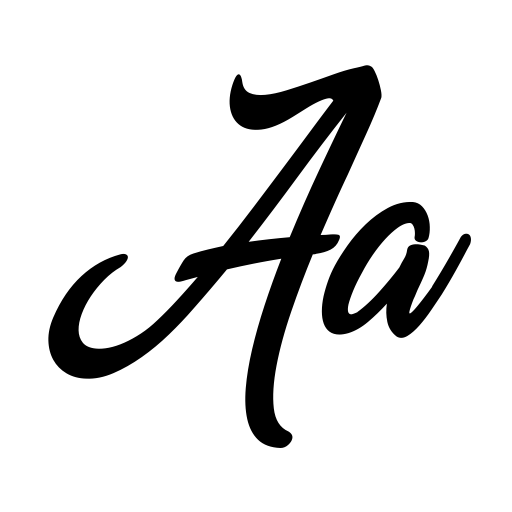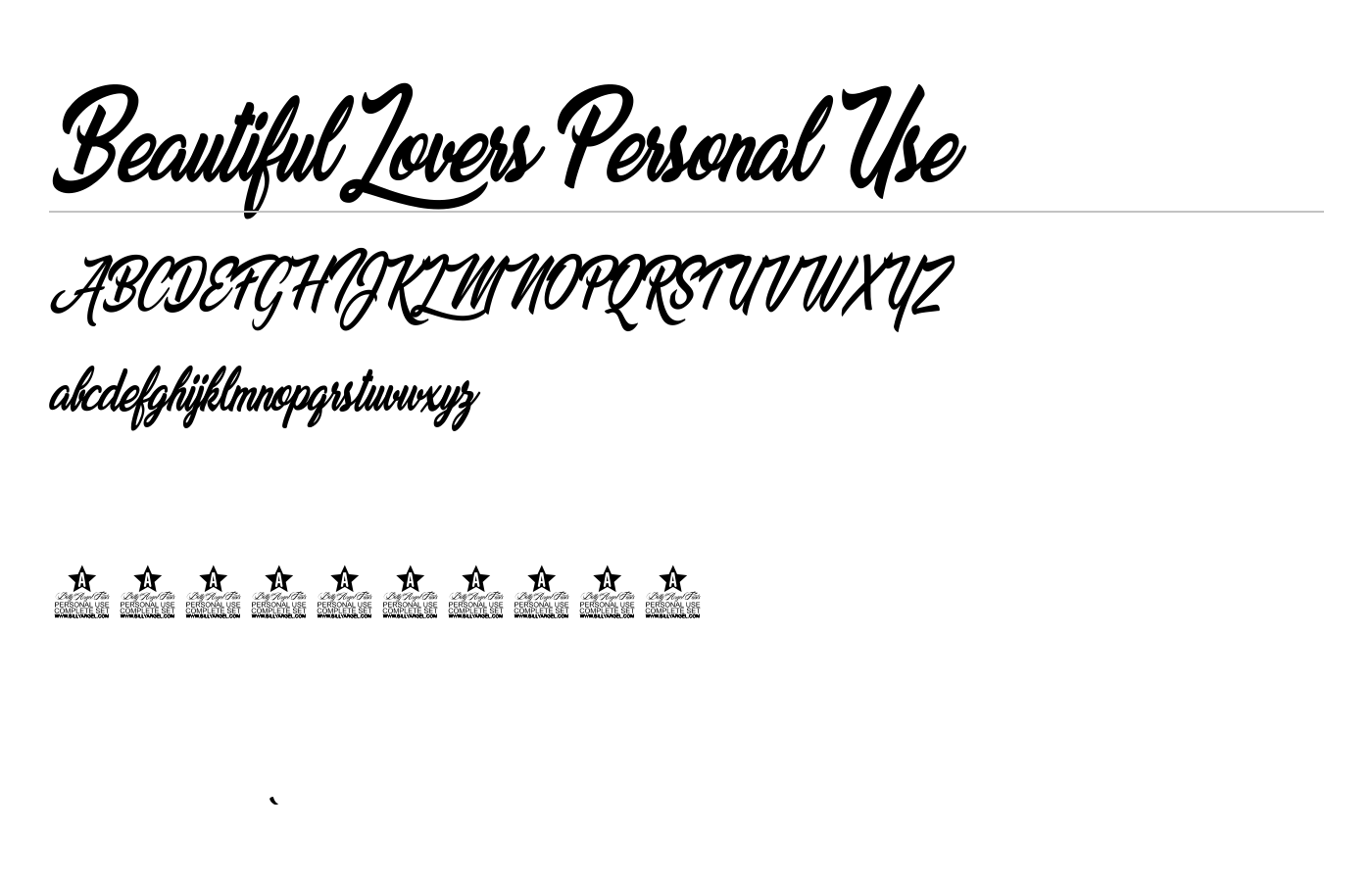
Beautiful Lovers Personal Use is a bold, elegant script font with smooth, flowing strokes that evoke a sense of romance and sophistication. Its connected letterforms and high contrast make it perfect for invitations, branding, and fashion-related projects where a stylish and personal touch is desired. This font shines in headlines and decorative text, adding a luxurious and warm feeling to any design.
Beautiful Lovers Personal Use Font
About Beautiful Lovers Personal Use Font
| Font family | Beautiful Lovers Personal Use Font |